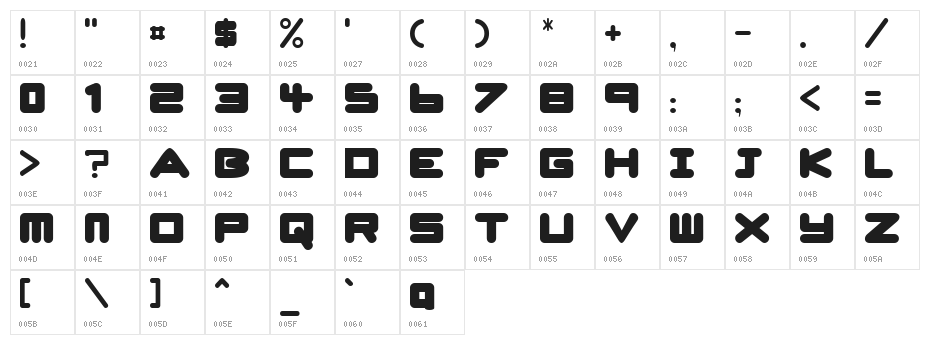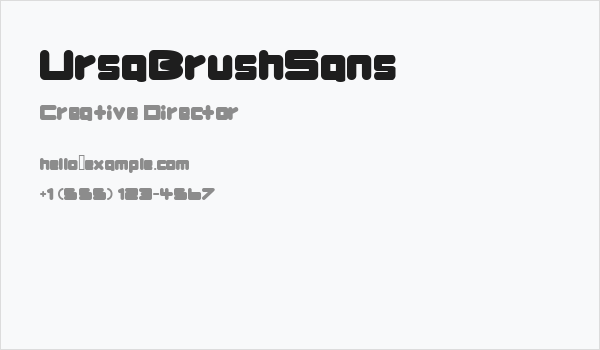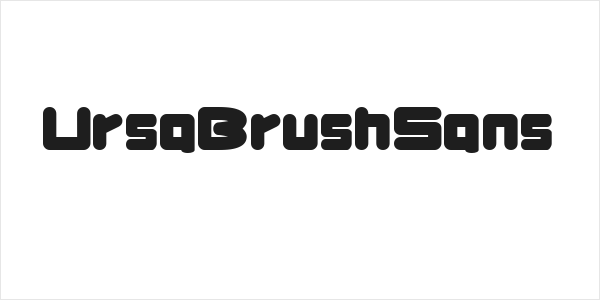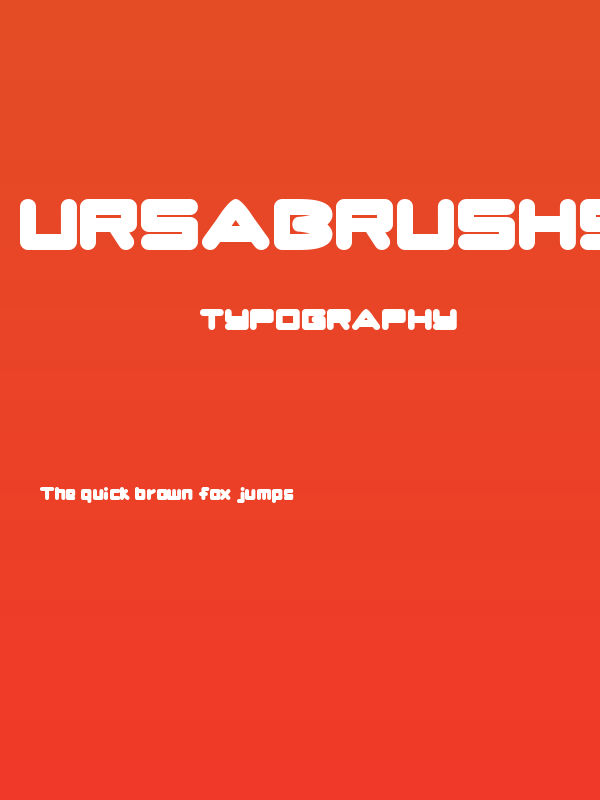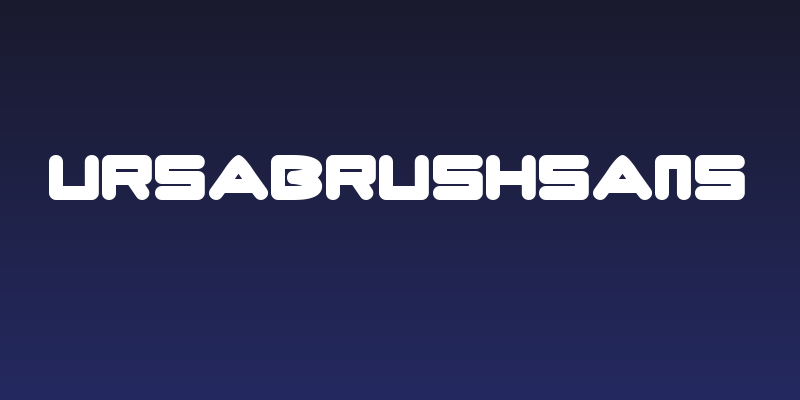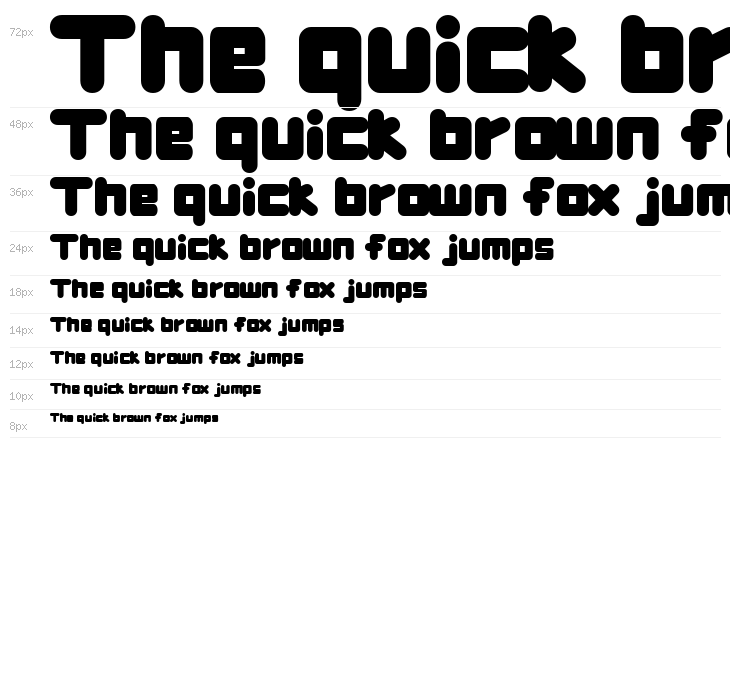
UrsaBrushSans Font
UrsaBrushSans Description
This font features a bold, rounded style with a modern and playful aesthetic. The characters are uniformly thick, giving a strong and impactful appearance. The rounded edges soften the overall look, making it approachable and friendly. The uppercase and lowercase letters maintain a consistent height, contributing to a cohesive design. Numbers and special characters follow the same bold and rounded theme, ensuring uniformity across all glyphs. This font is ideal for projects that require a strong visual presence while maintaining a casual and inviting tone.